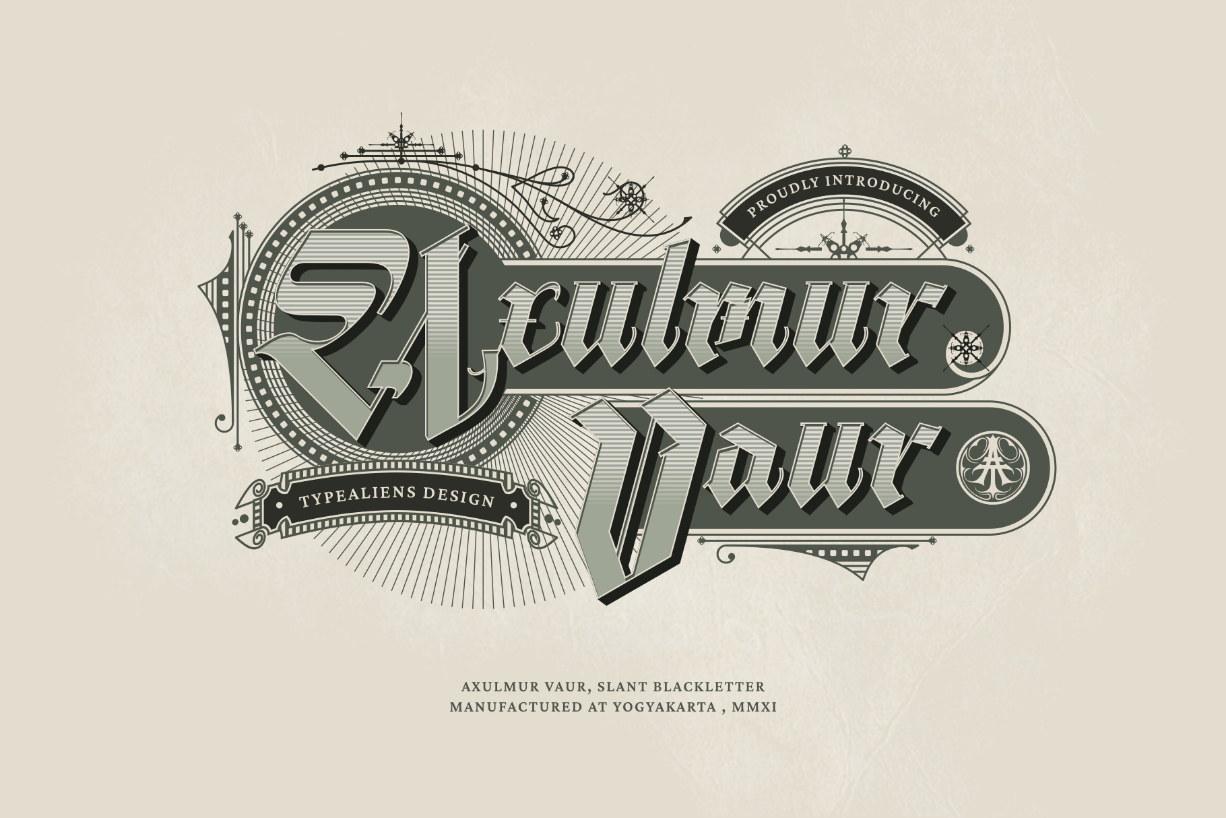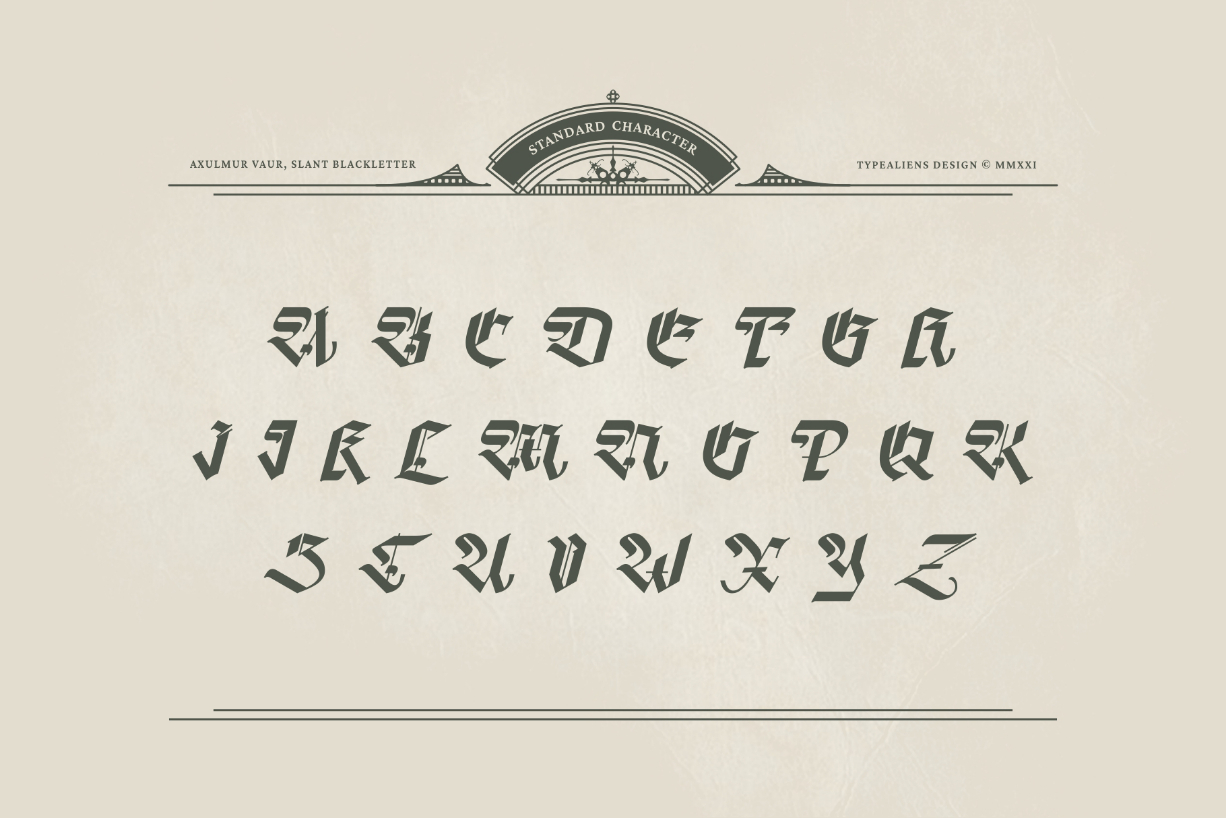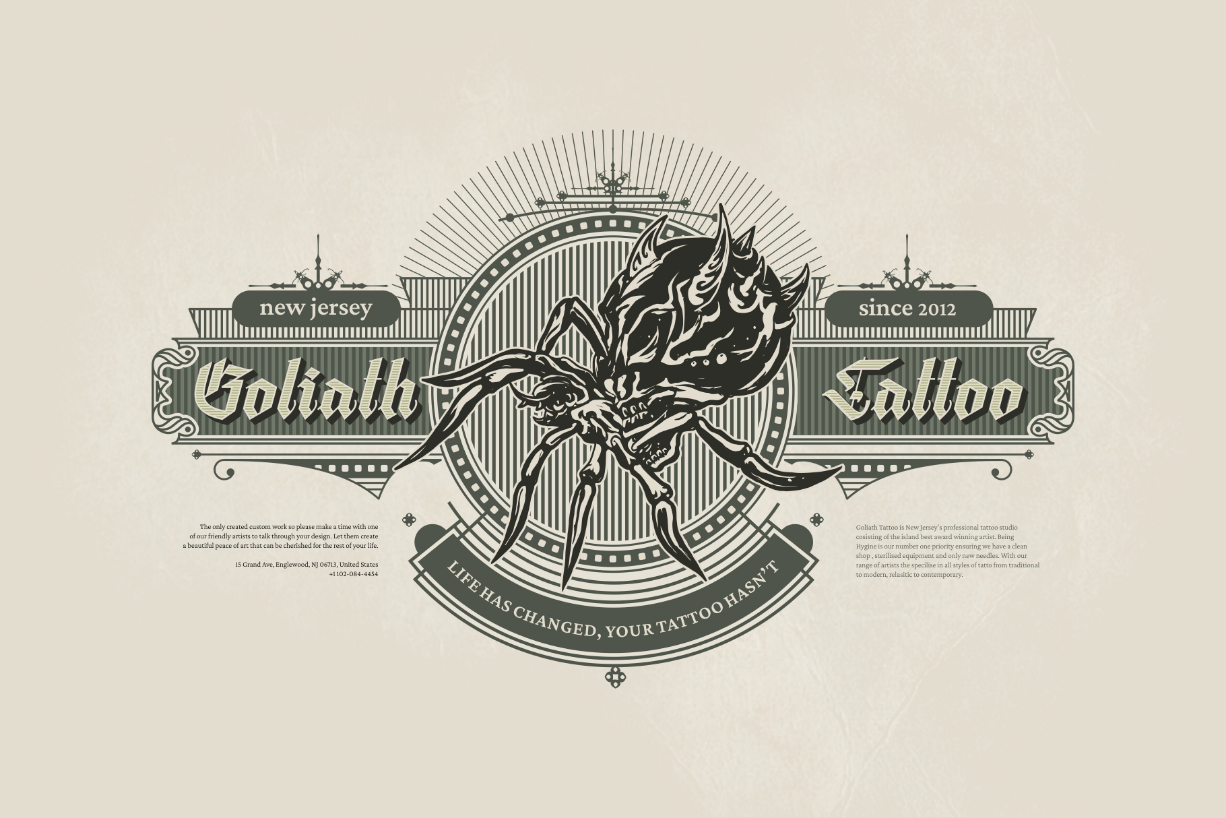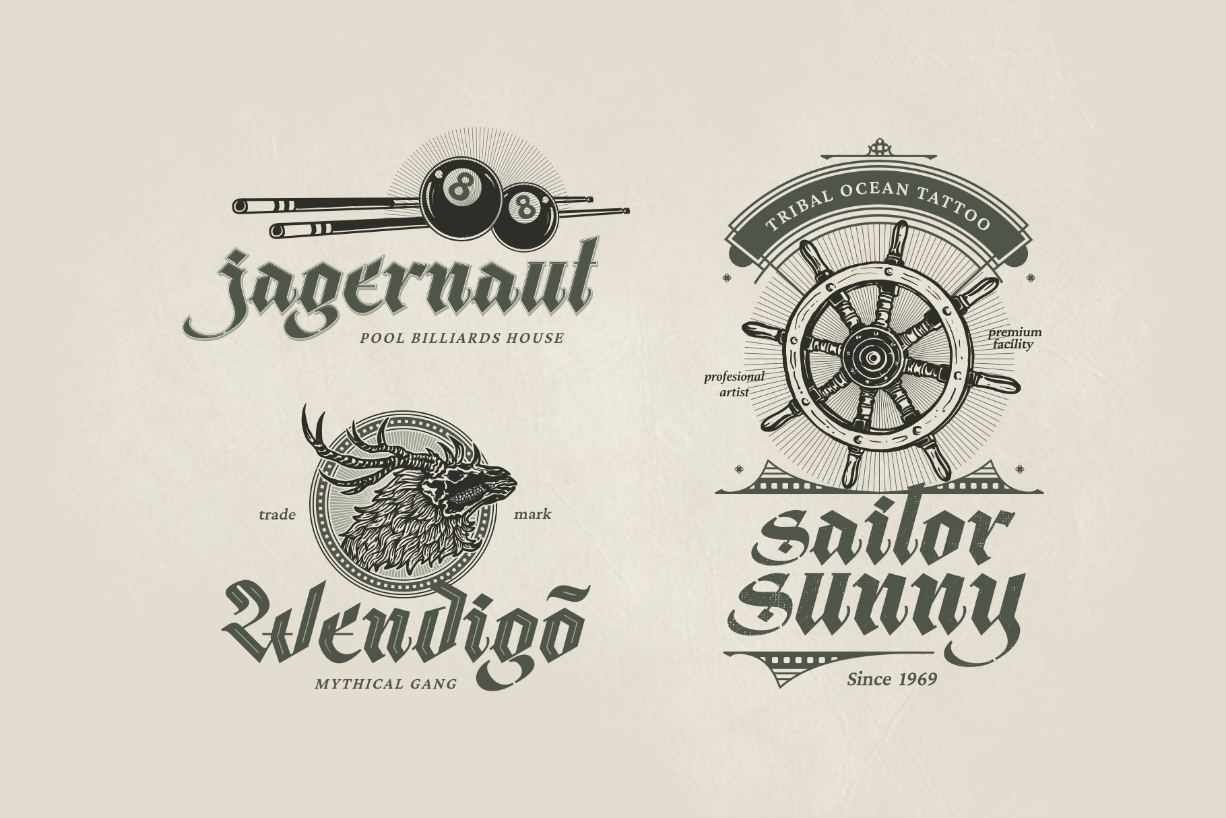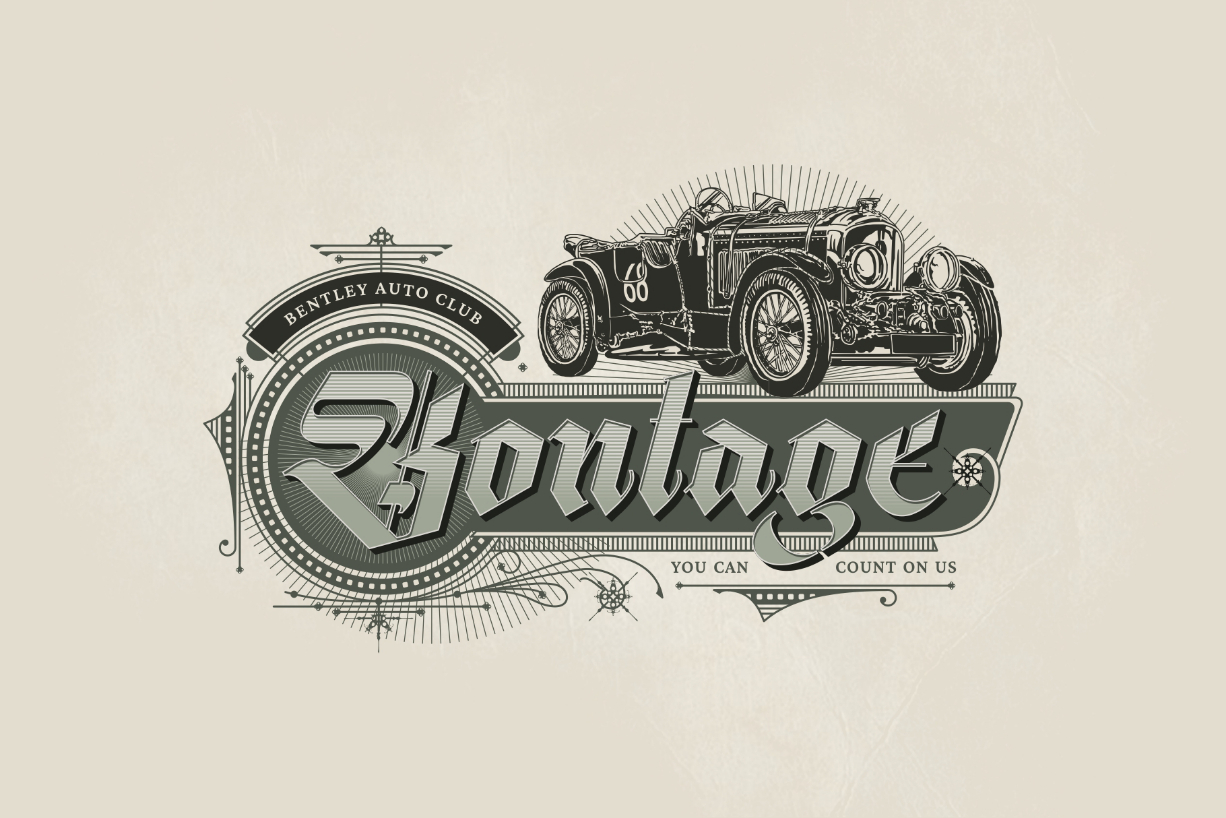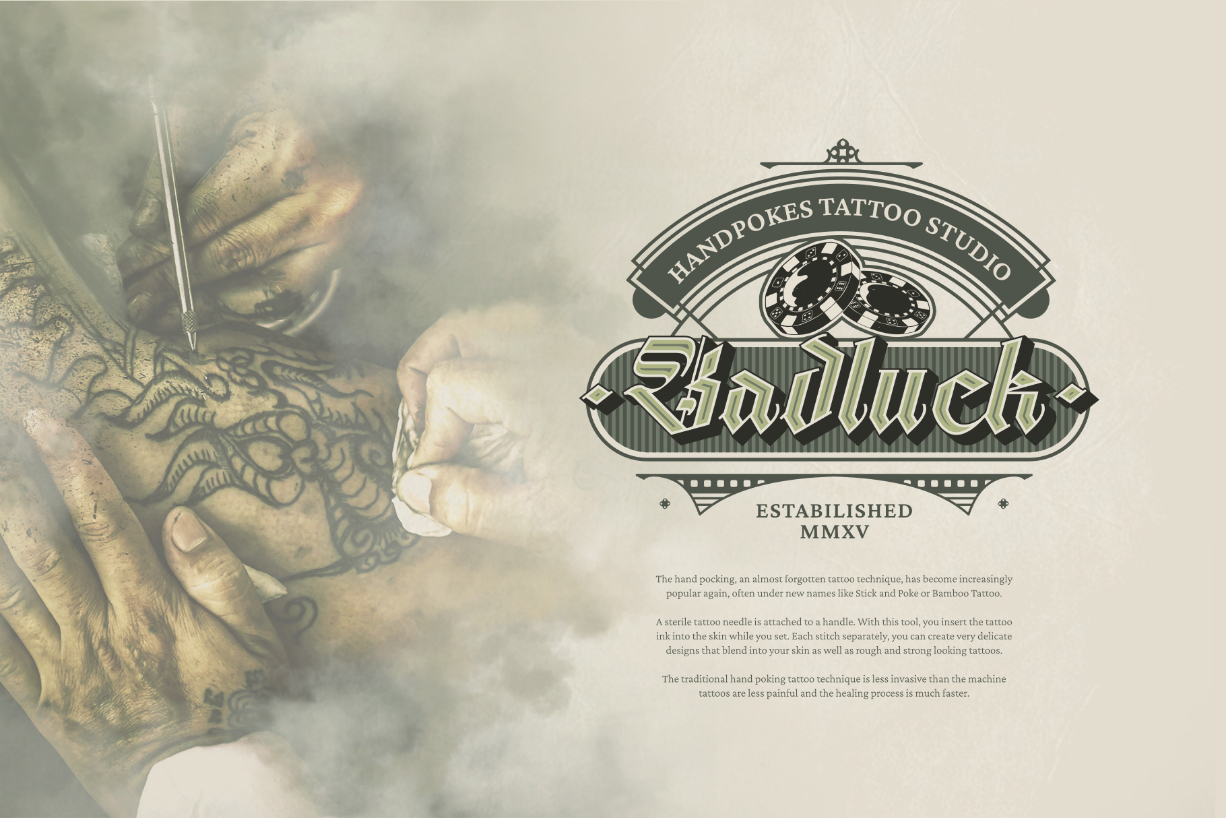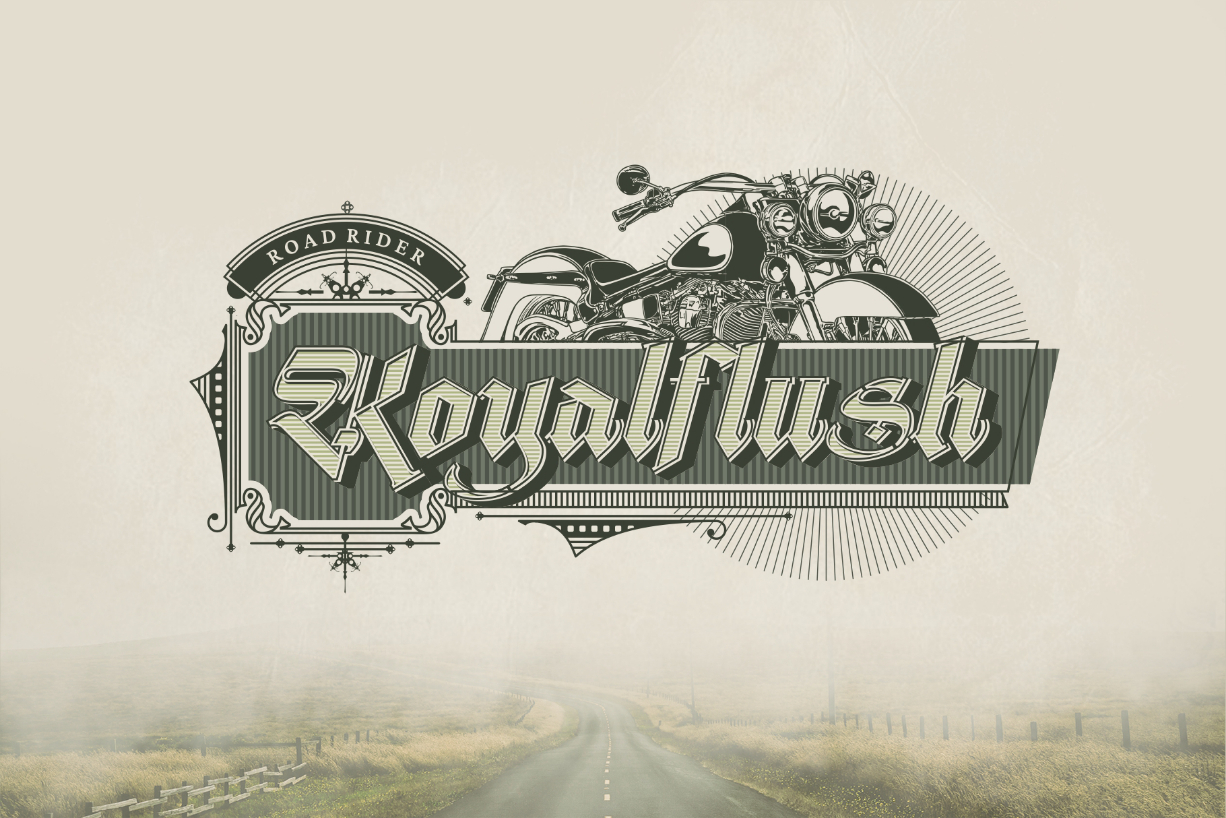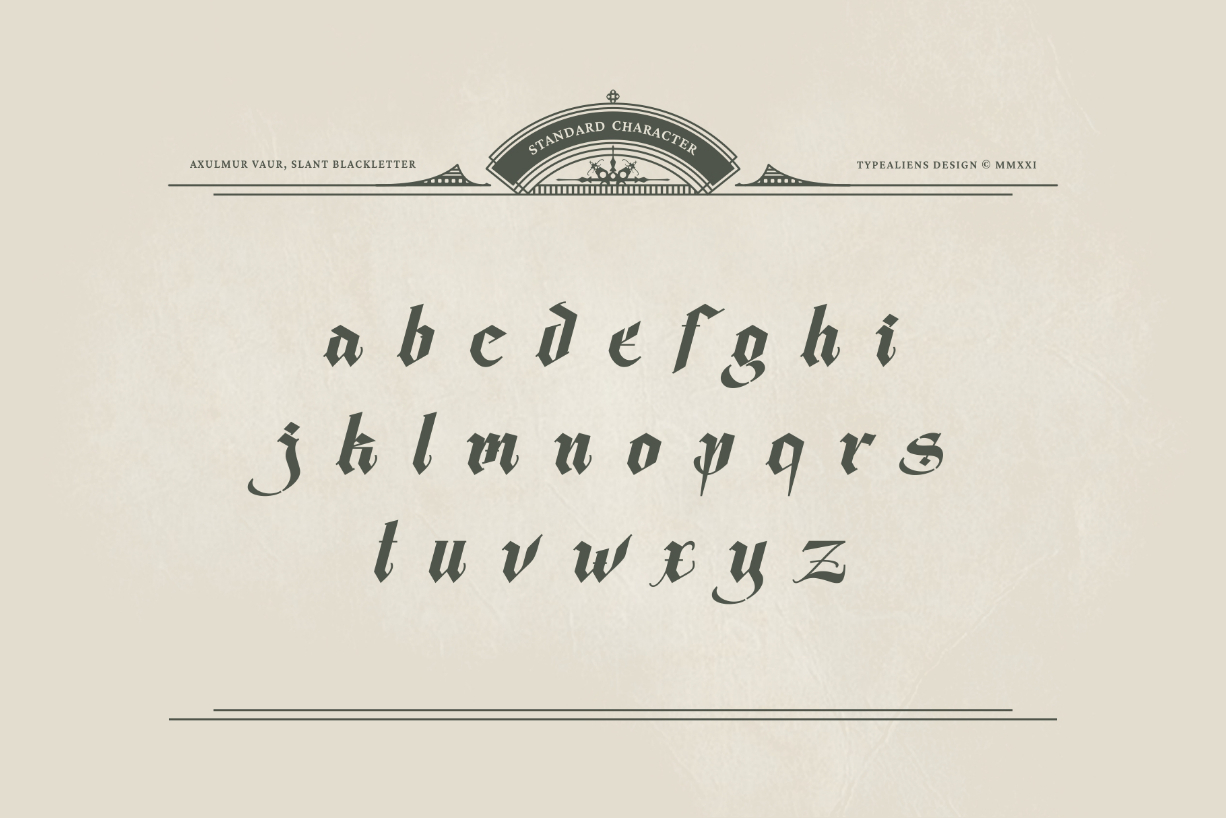
Axulmur Vaur Font
About Axulmur Vaur Font
Axulmur Vaur is a cool, bold and assertive blackletter font. This font is neatly crafted and highly detailed. Whatever the topic, this font will be a wonderful asset to your font library, as it has the potential to enhance any creation.